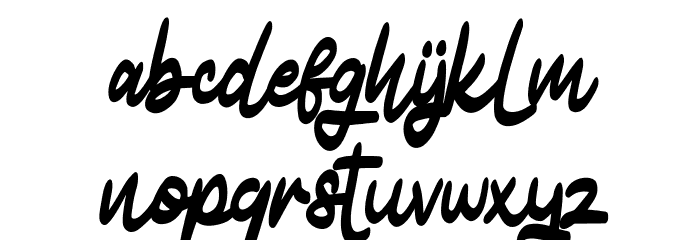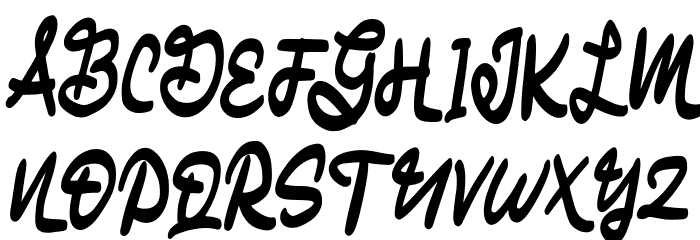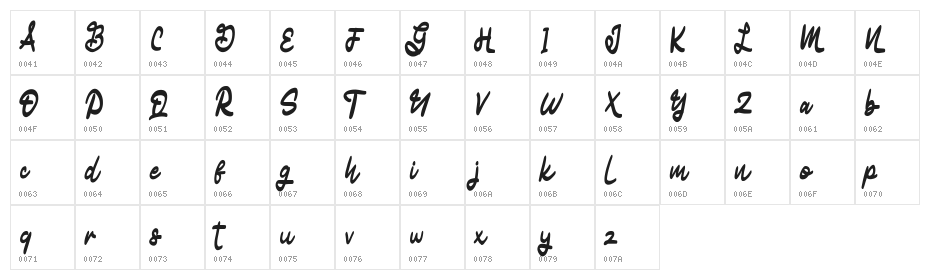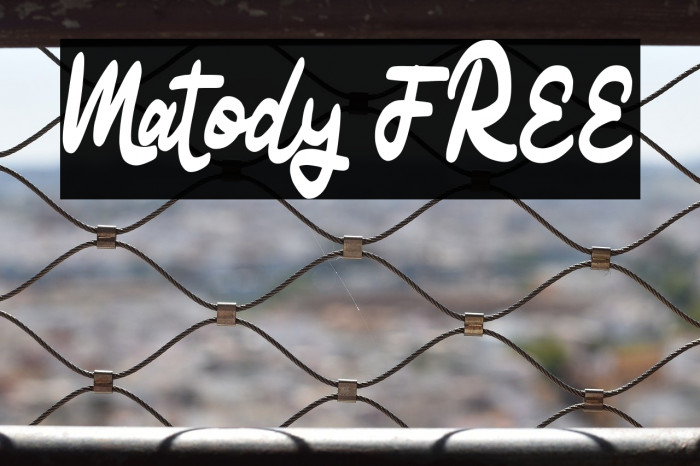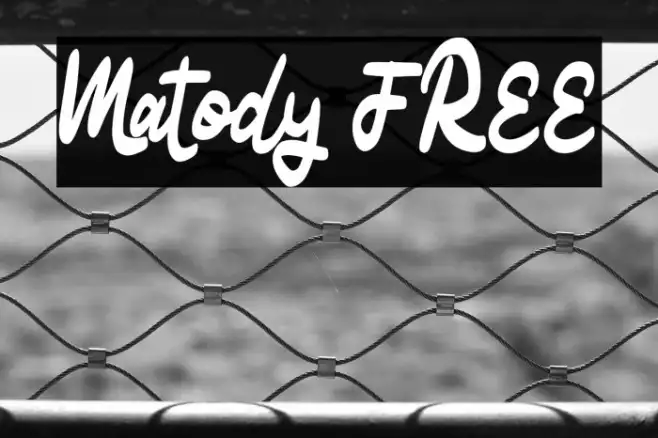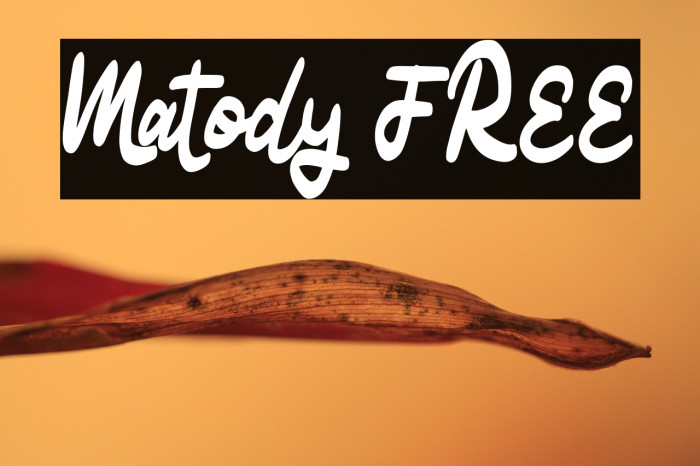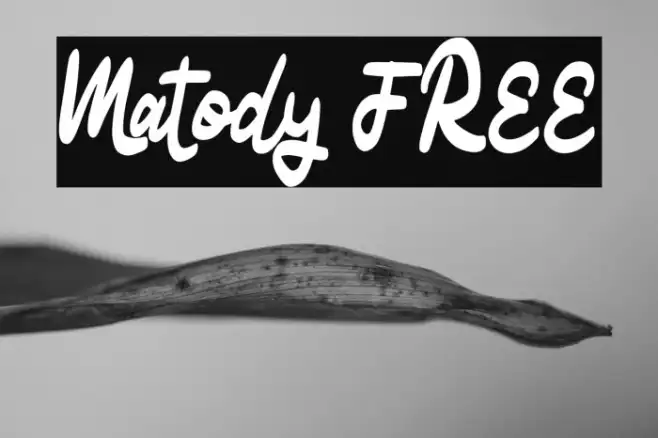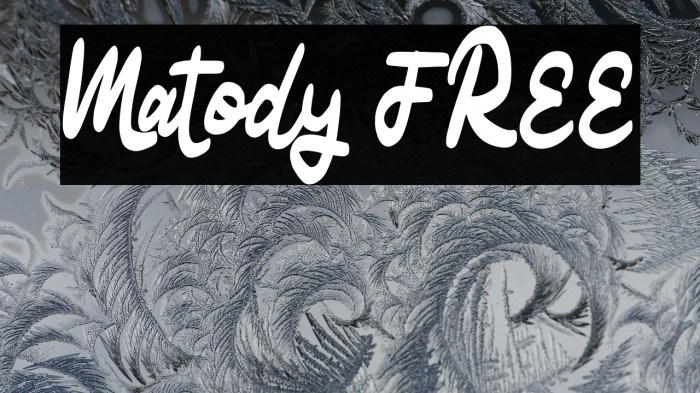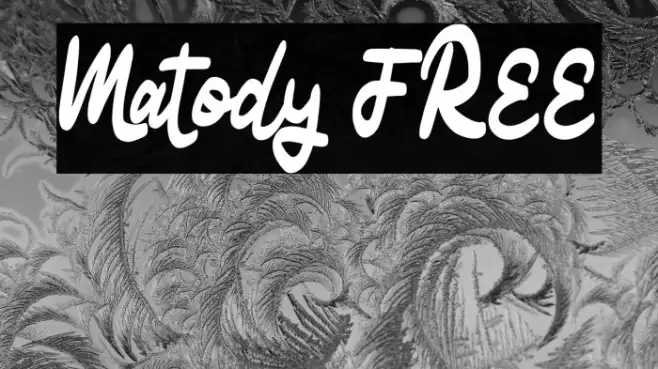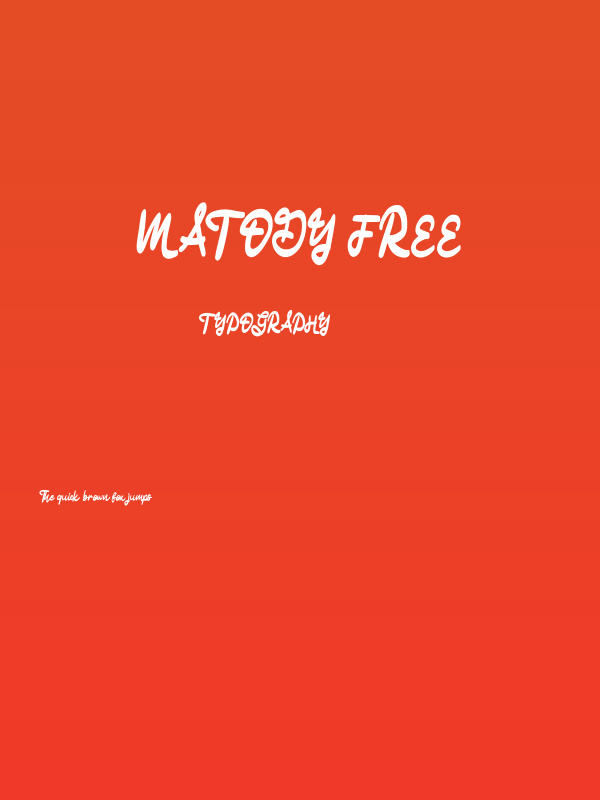
Matody FREE Font
This font features a bold, cursive style with a playful and energetic flair. The characters are interconnected, giving a sense of fluidity and movement. The strokes are thick and consistent, providing a strong visual impact. The uppercase letters are particularly ornate, with loops and swirls that add a decorative touch. The lowercase letters maintain the same lively style, ensuring readability while retaining the font's unique character. The numbers and special characters are designed to match the overall aesthetic, making this font versatile for various uses.
A bold, cursive font with a playful and energetic style.
- Proposed Projects: Ideal for branding, logos, invitations, and creative projects requiring a lively and decorative touch.
- Use Case: Logos, Invitations, Creative projects